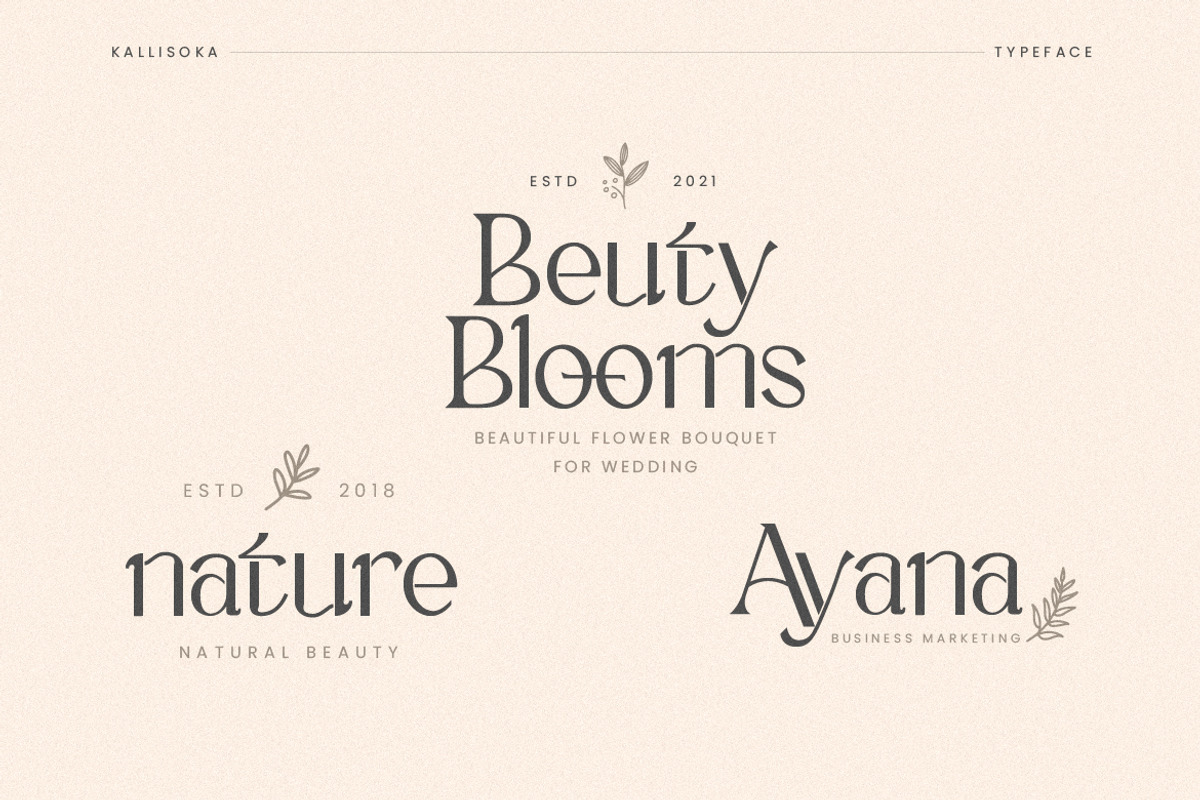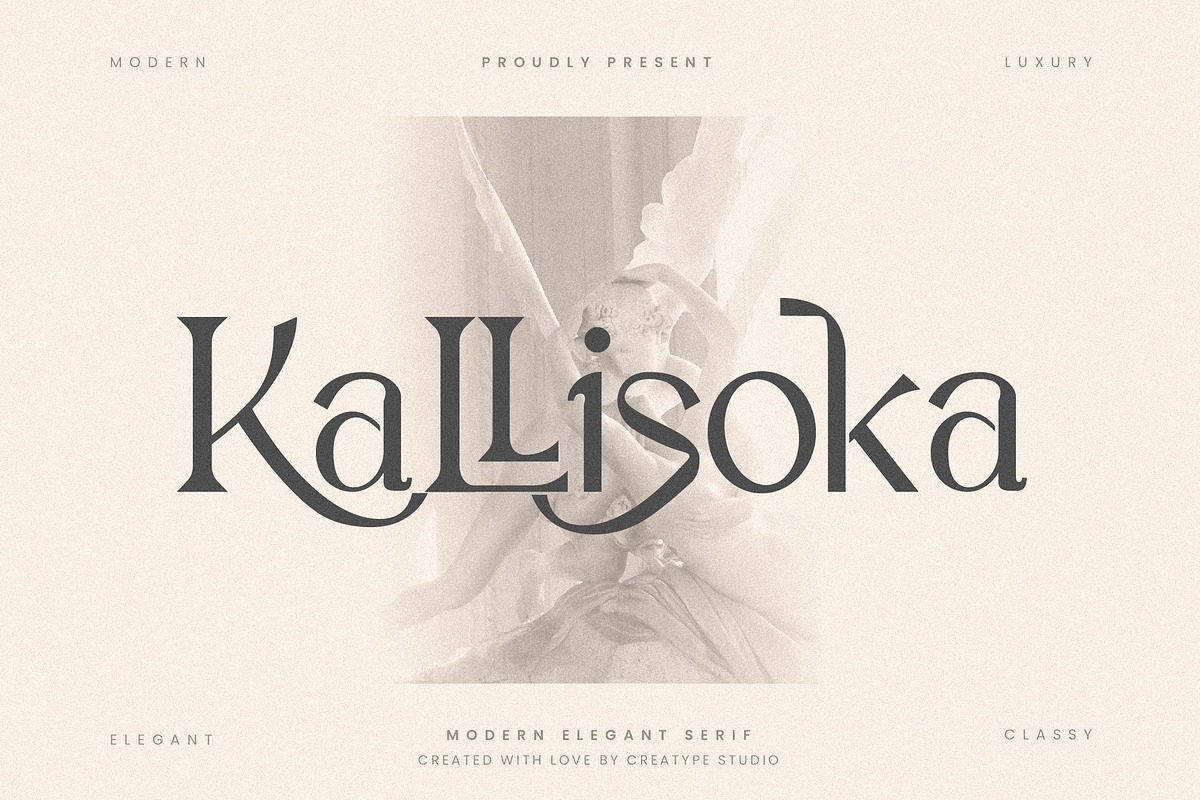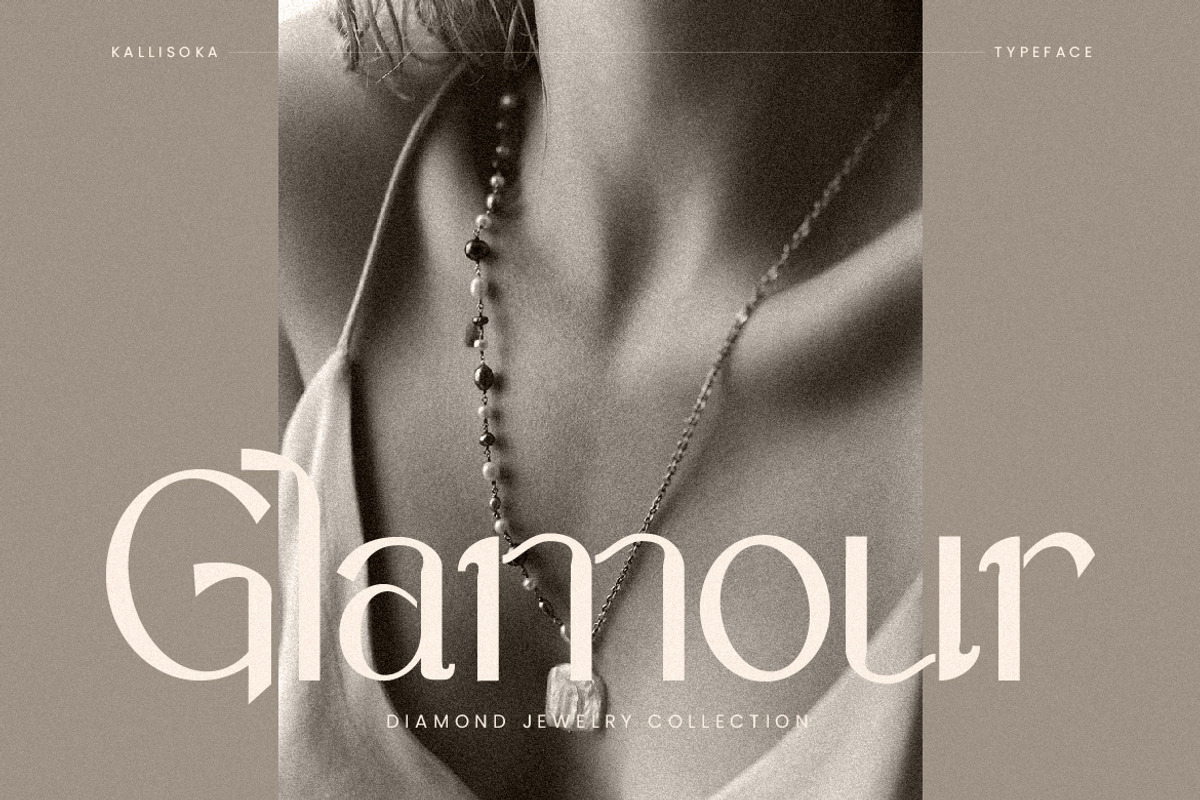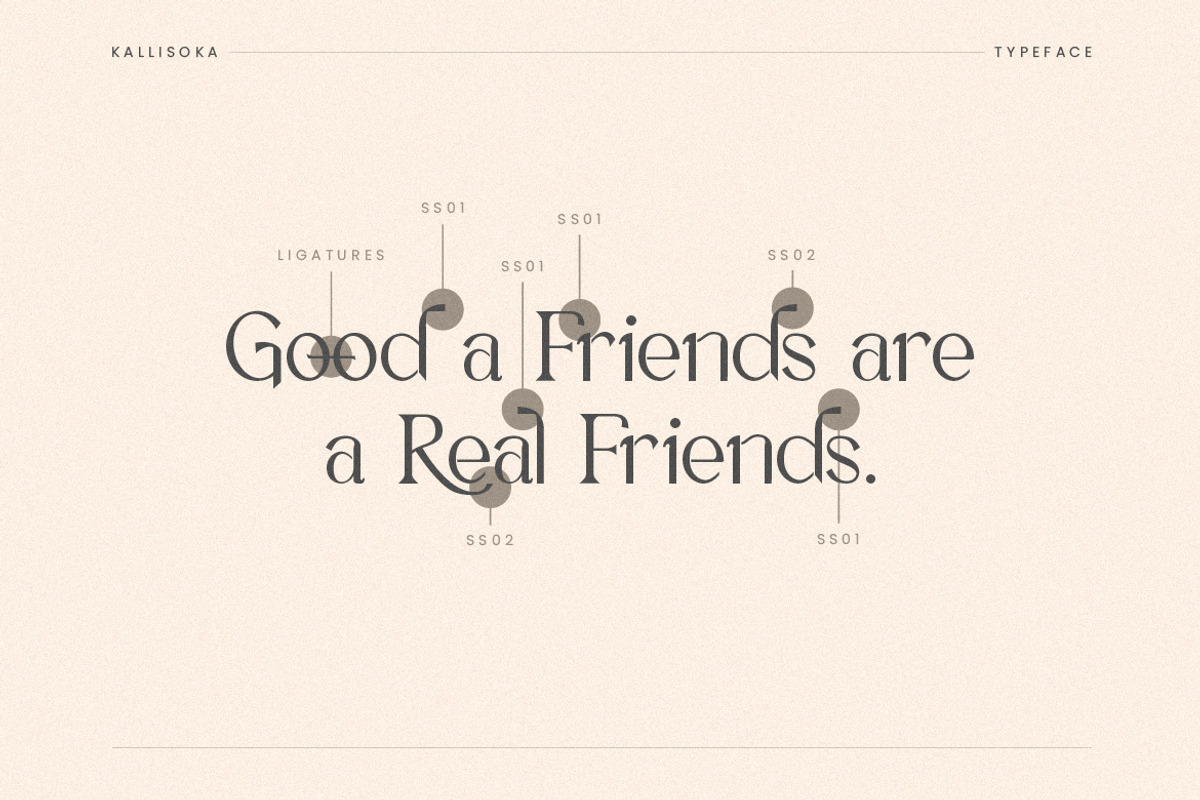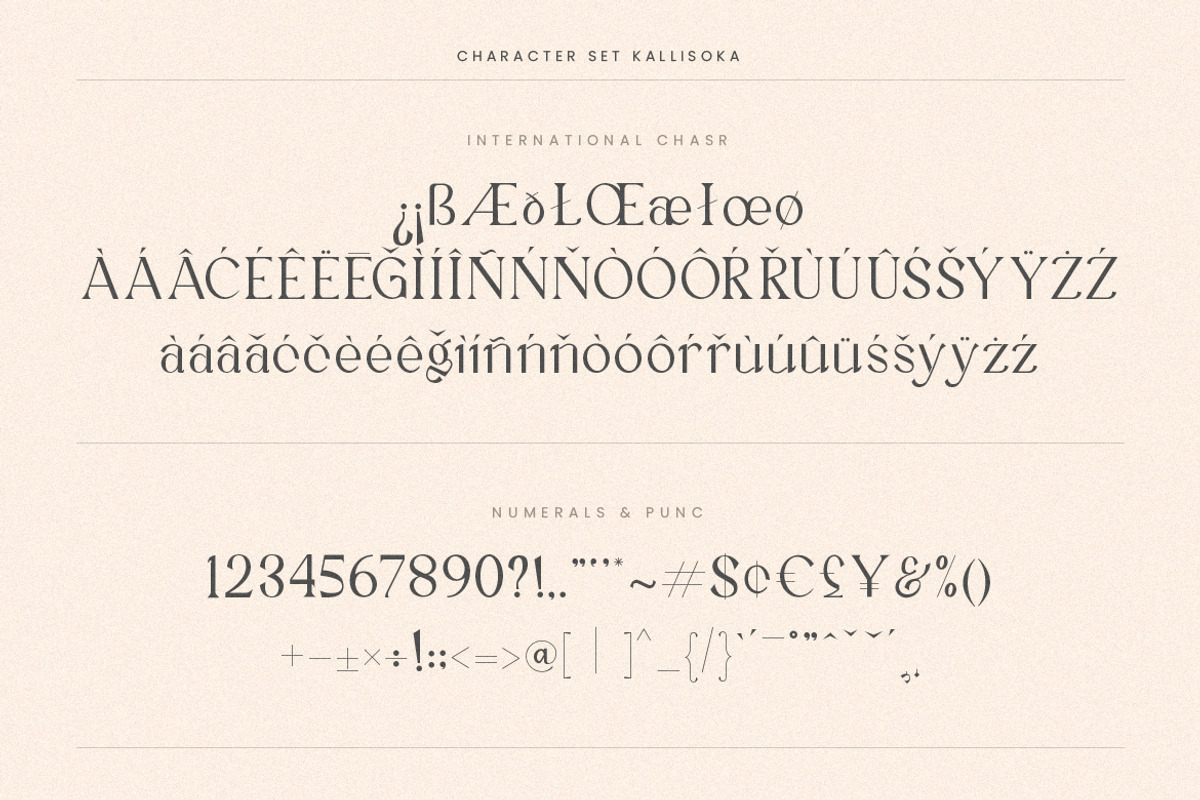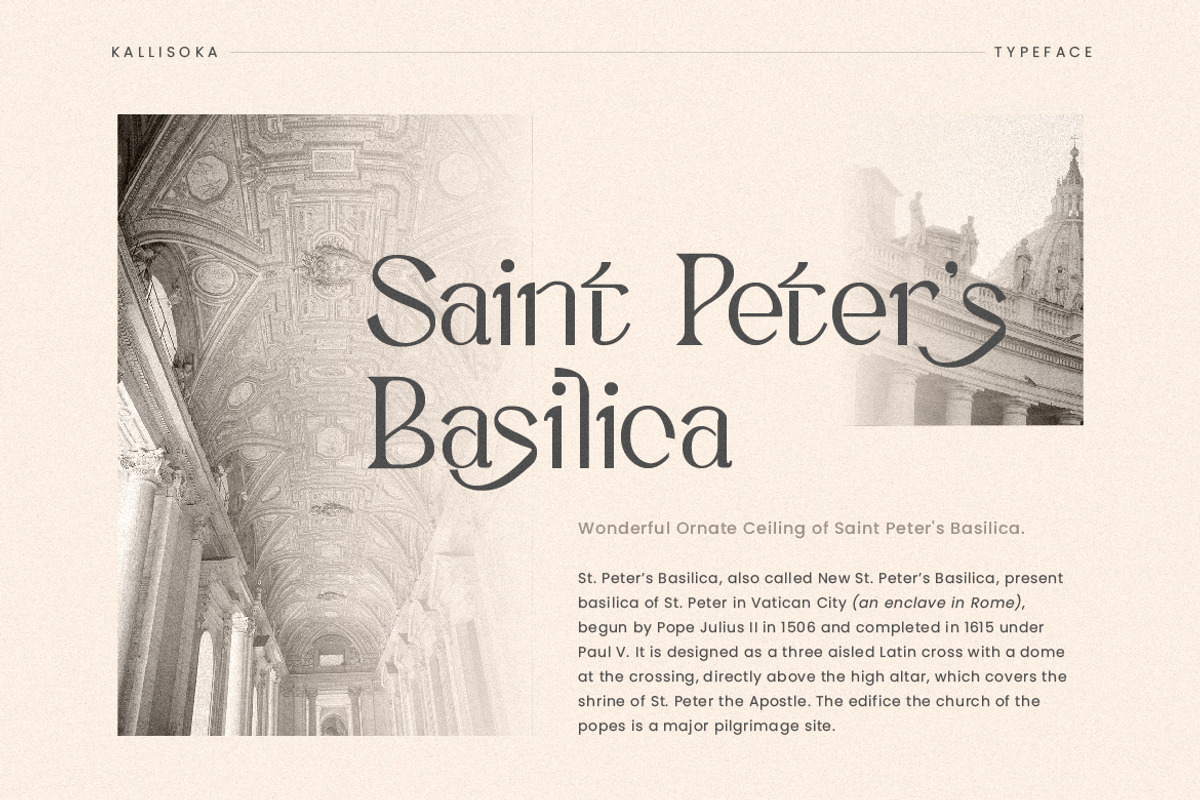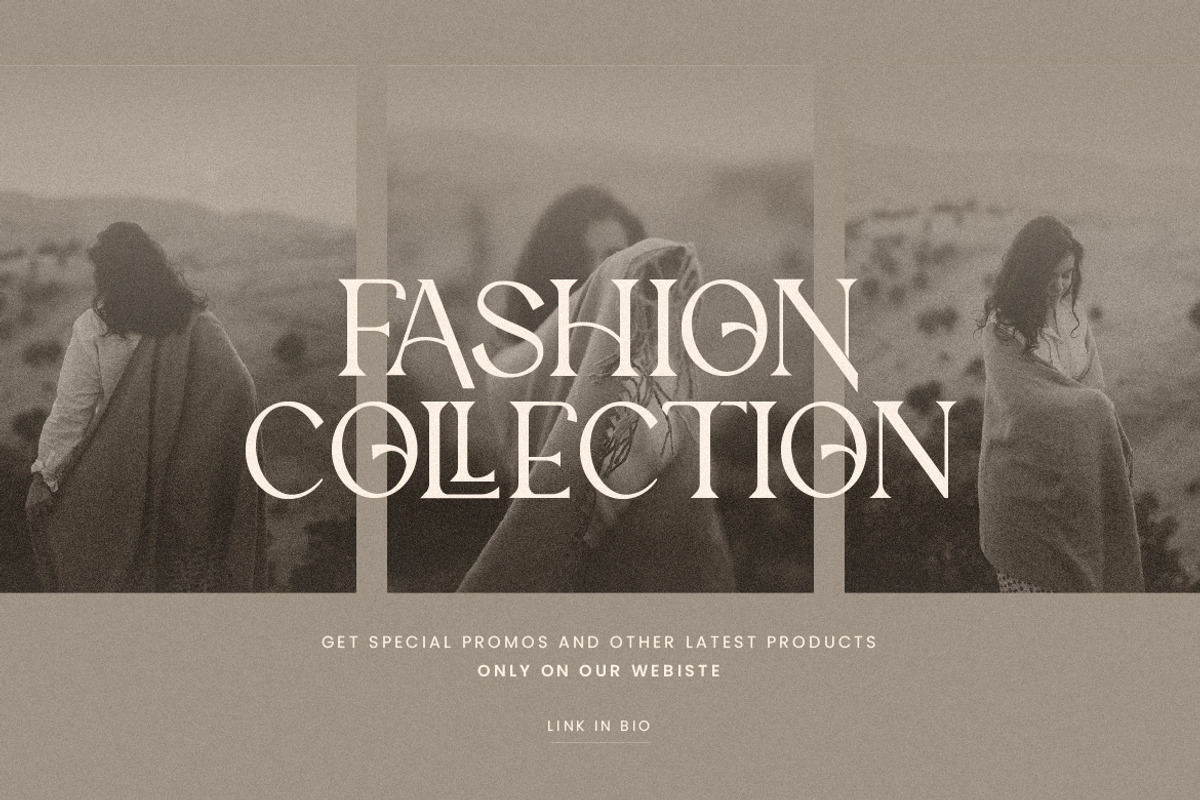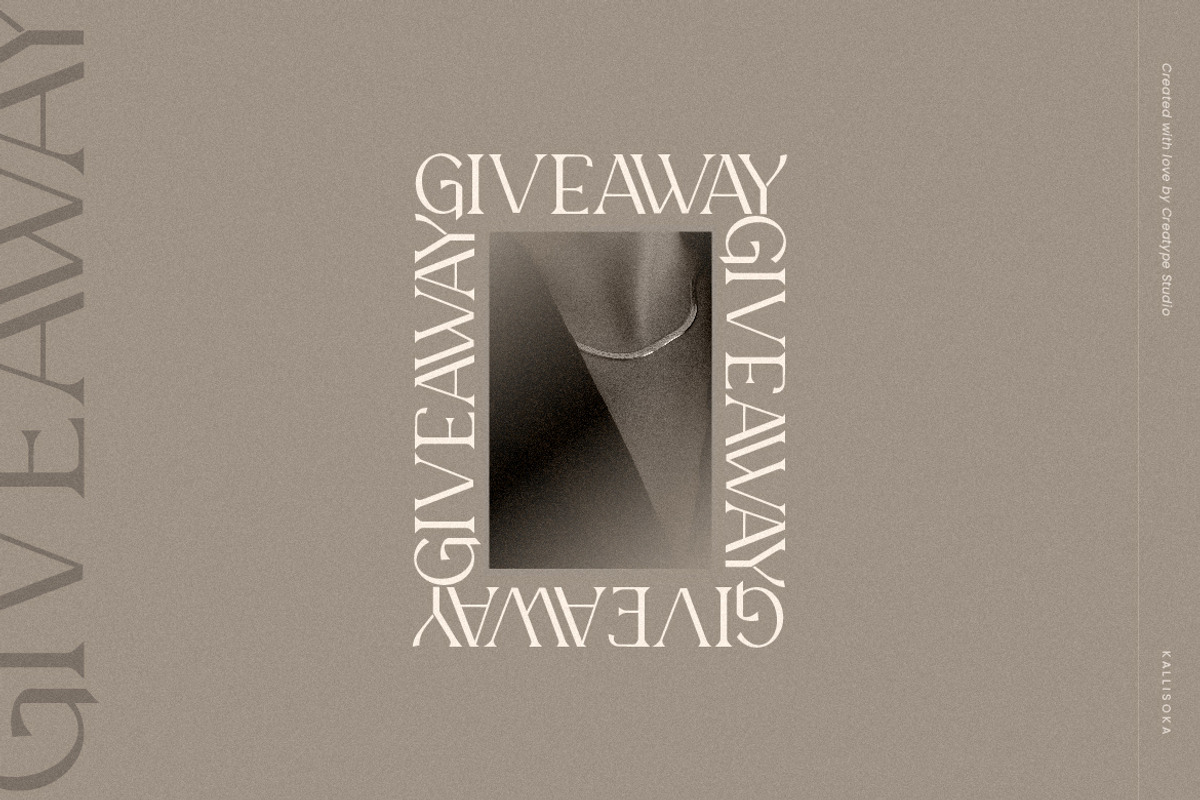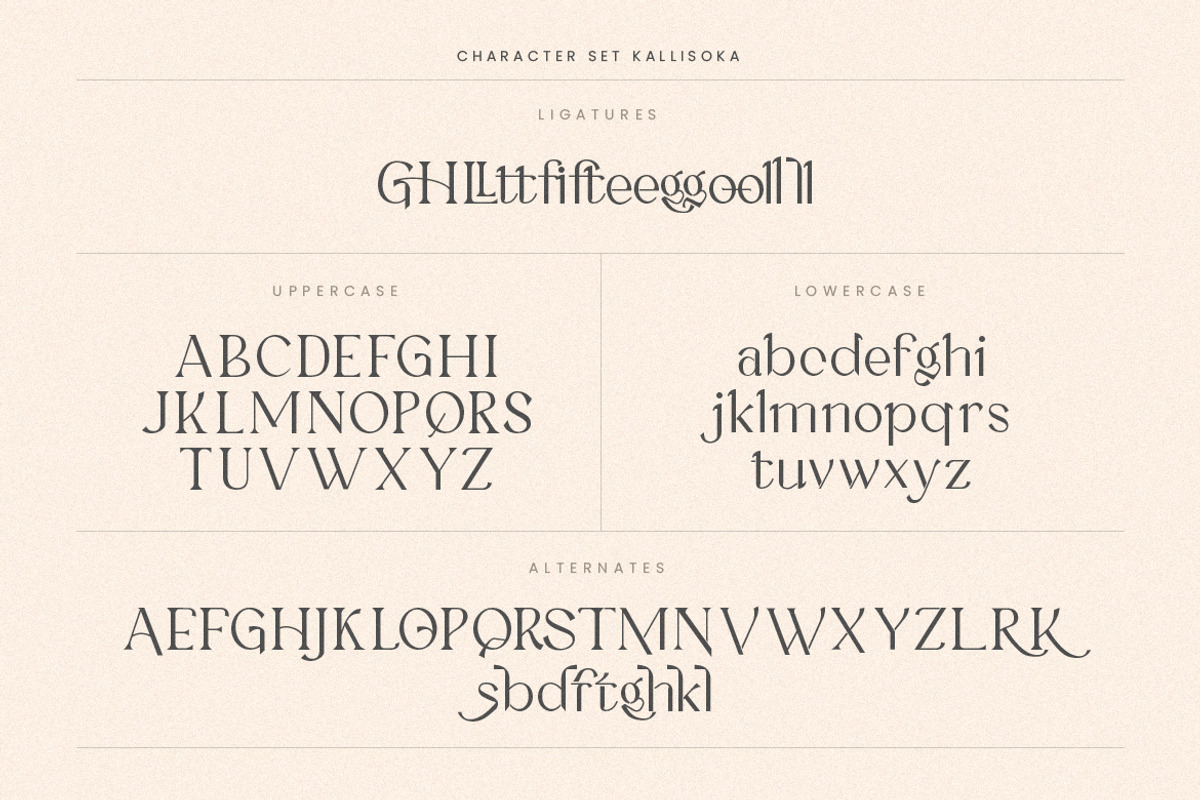
Kallisoka Modern Elegant Serif
Kallisoka is a modern elegant serif typeface with a modern form that makes this font look so luxurious. Crafted with love, this font has 33 alternatives and 10 ligatures that can make your designs look absolutely stunning.
Kallisoka is perfect for branding projects, logo, wedding designs, social media posts, advertisements, product packaging, product designs, label, photography, watermark, invitation, stationery and any projects that need handwriting taste.